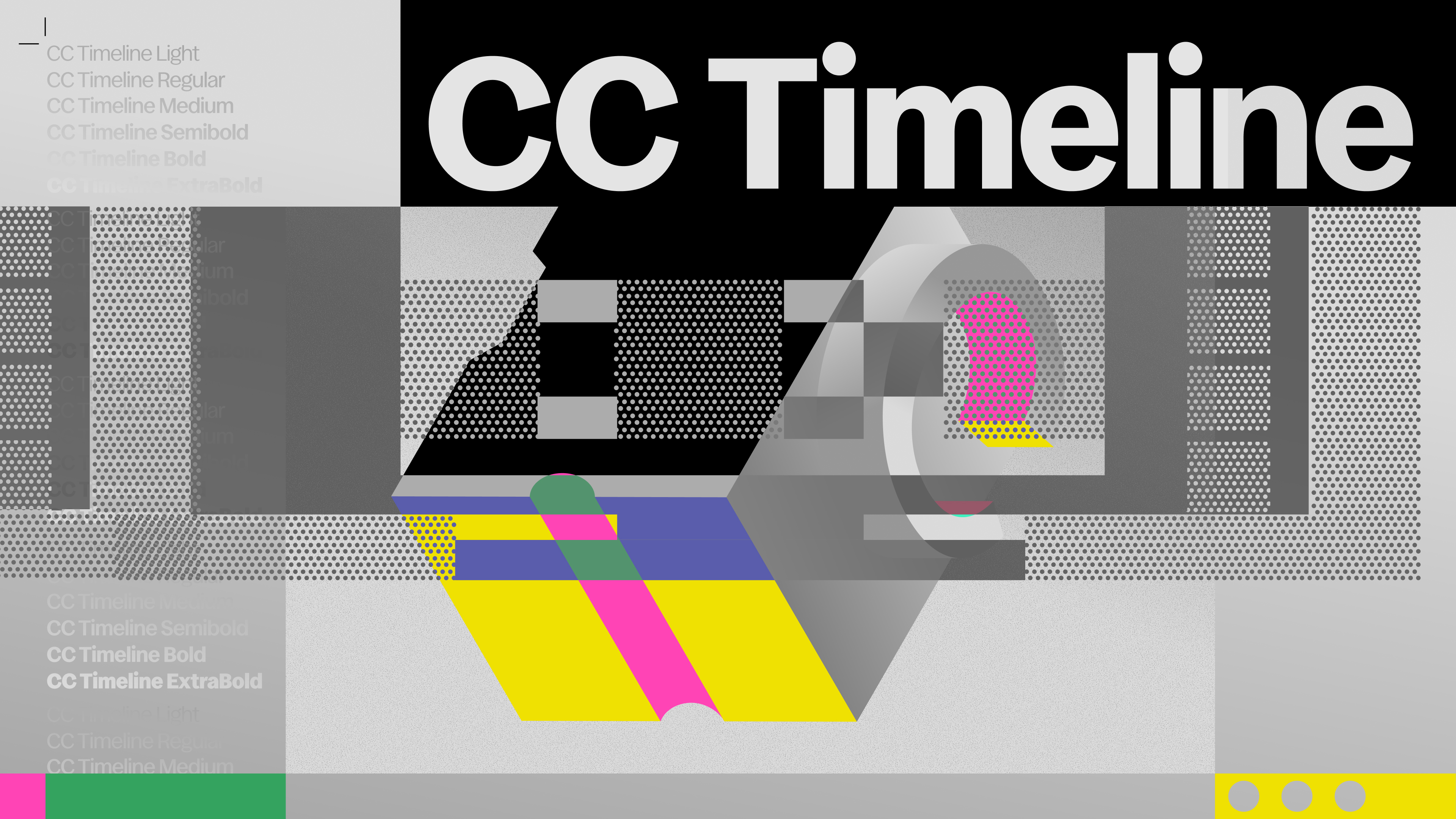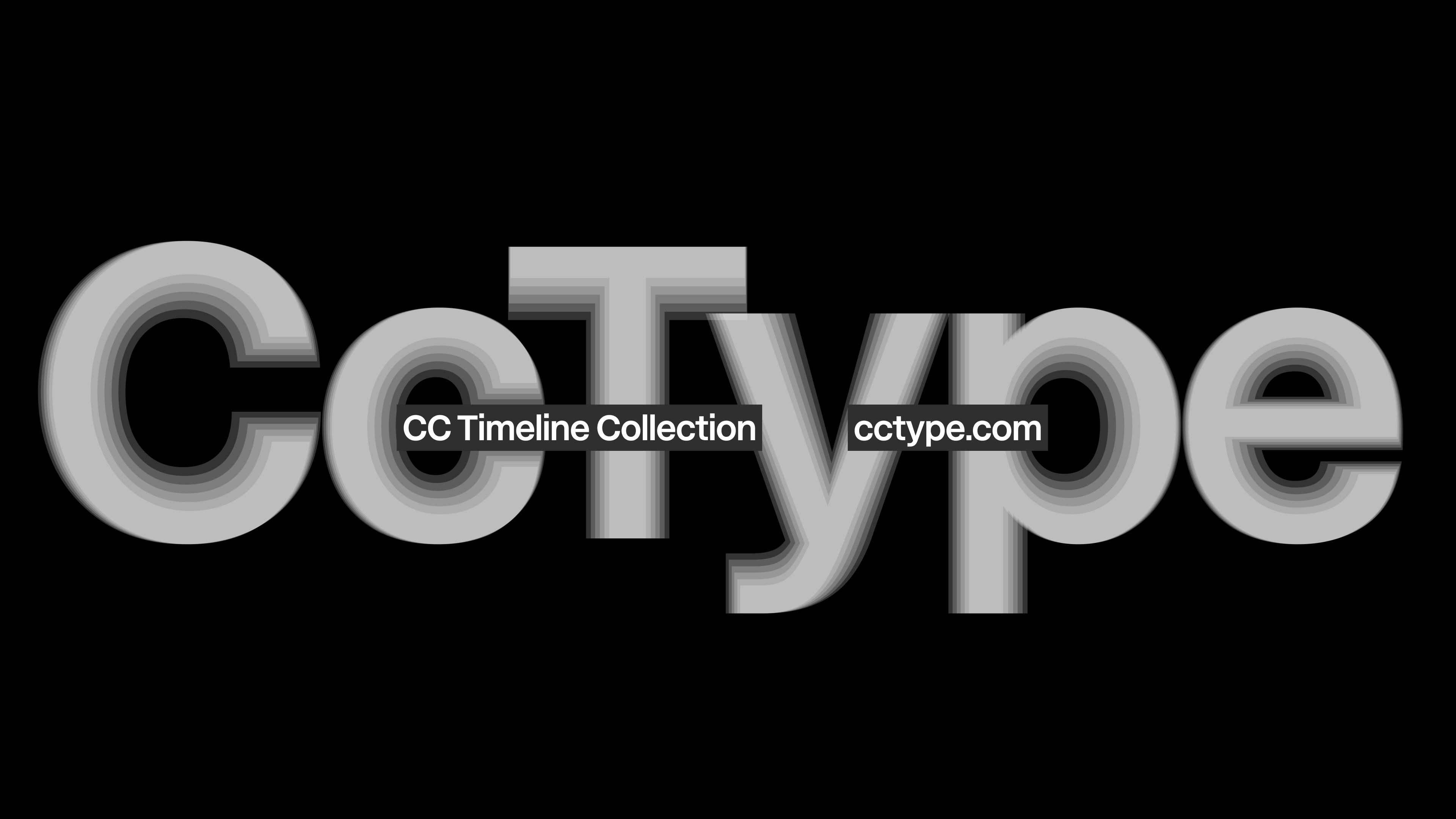
Koto’s new type foundry is redefining the rules of font design
CcType is all about quality over quantity.
Global creative studio Koto has launched CcType, a brand new type foundry built for the contemporary design world. Leveraging years of experience designing bespoke type systems for iconic brands, Koto's latest venture is defined by versatility and high craft – a response to the ever-evolving demands of modern branding.
Koto isn't new to the game, having already created custom fonts like Polkadot, Faculty, and Stack Overflow for past projects, with responses from the design community proving creatives are hungry for more. A careful blend of emotional and practical design, CcType debuts as the solution to contemporary design's hunger for flexible typography that can hold up in today's branding world.
Throughout their work, Koto began noticing a problem with today's typefaces – the balance of practicality and emotion. While some performed outstandingly in one context, it seemed many lacked the adaptability to keep up with the demands of brand, broadcast and digital branding.
CcType's debut is marked by the release of a single typeface, focusing on quality over quantity. CcTimeline is a display sans serif built around flexibility and control, designed for bold branding that needs dynamism and presence. Inspired by "British metal type, modernist Swiss and German photo-typesetting, and contemporary digital typography," the typeface is customisable through its adjustable axes and OpenType features, allowing designers to fine-tune and adapt the personality without sacrificing consistency.
“For this first release, we wanted to make the most robust and useful typeface we could,” said Dylan Young, senior type designer at Koto. “CcTimeline is designed to move across a huge emotional range. Rigorous when it needs to be. Loud when it needs to be. Functional in product, expressive in campaigns. That flexibility became the defining idea behind the system.”
“CcType occupies the same space Koto does as an agency: boutique craft at scale,” said Jowey Roden, chief creative officer at Koto. “There’s incredible experimentation happening in independent typography, but sometimes less confidence around scale and execution. At the other end, some of the largest players feel increasingly standardised. We saw an opportunity in the middle: highly considered, contemporary type systems built to perform in the real world.”